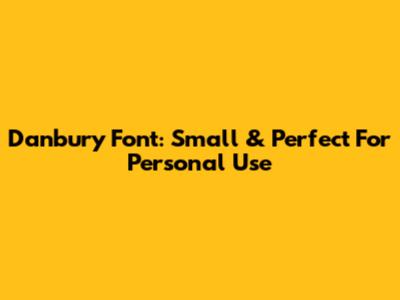
Danbury Font: Small & Perfect For Personal Use
Hey guys, let's talk about fonts! Specifically, we're diving deep into the **Danbury font**, a real gem that's gained traction for its suitability for personal use, especially when you need something small and impactful. You know those projects where you need a font that's legible even at tiny sizes, without sacrificing style? That's precisely where Danbury shines. It’s not just about aesthetics; it’s about **functionality** and **versatility**. Whether you're a hobbyist designer, a blogger, or just someone looking to add a personal touch to your invitations or social media posts, Danbury offers a delightful solution. We'll explore why this font is a go-to for many, how its design characteristics make it ideal for smaller applications, and where you can best utilize its charm. Get ready to discover a font that might just become your new favorite for those intricate, detailed projects where every pixel and curve matters. This isn't just another font; it's a carefully crafted typeface designed to impress even at its smallest dimensions, making your creative endeavors stand out. We're going to break down its unique qualities, offering insights that will help you integrate it seamlessly into your design toolkit. So, buckle up, and let's get started on uncovering the magic of the Danbury font!
Understanding the Appeal of Small Fonts
When we talk about small fonts, we're not just talking about size; we're talking about readability and the ability to pack a lot of information into a limited space. Think about the fine print on a contract, the labels on your favorite spices, or the elegant script on a wedding invitation. These applications demand fonts that are clear, crisp, and easy on the eyes, even when shrunk down. This is where the design of a font truly gets put to the test. A poorly designed small font can become an illegible blob, frustrating your audience and undermining your message. Conversely, a well-crafted font for small use, like the Danbury font, becomes an invisible yet essential part of the design, guiding the reader smoothly through the content. The appeal lies in its ability to maintain its integrity and character at various scales. It's about achieving clarity without appearing clunky, and retaining a sense of style without becoming overly decorative or distracting. Many designers struggle to find fonts that perform well in both large display settings and small body text, but fonts optimized for small use, like Danbury, often strike that perfect balance. They are typically designed with specific considerations for x-height, ascender and descender length, counter shapes, and stroke thickness, all of which contribute to legibility at smaller point sizes. This meticulous attention to detail ensures that even at 8 or 10 points, the text remains sharp and understandable. Furthermore, the psychological impact of a well-chosen small font can be significant. It can convey sophistication, attention to detail, and a sense of intimacy. For personal use projects, this means your handwritten notes, digital scrapbooks, or custom stationery can carry a more polished and thoughtful feel. The Danbury font, in particular, seems to understand this intricate dance between form and function, making it a top contender for anyone needing reliable performance in a compact package. We'll delve into the specific design elements that make Danbury so effective in these scenarios, ensuring you get the most out of this fantastic typeface for all your personal creative endeavors.
What Makes Danbury Font Ideal for Personal Use?
Alright, so you're wondering what makes the Danbury font specifically stand out for personal use projects? Well, guys, it boils down to a few key things: its charming aesthetics, its excellent legibility, and its accessibility. Personal use projects often have a more intimate and crafted feel. Think wedding invitations, birthday cards, personalized stationery, or even custom labels for your homemade jams. You want a font that feels warm, inviting, and reflects a personal touch, rather than a cold, corporate typeface. Danbury often strikes this balance beautifully. It's generally designed with a friendly, approachable character that doesn't feel overly formal or stuffy. Its small size suitability means you can pack a lot of detail into these personal touches without them becoming a jumbled mess. Imagine the RSVP details on an invitation, the ingredients list on a recipe card you're gifting, or the thoughtful quote you want to add to a scrapbook page. Danbury handles these with grace. Furthermore, **accessibility** is a huge plus for personal use. Many fonts designed for commercial use can come with hefty licensing fees. Danbury, being often available for personal use without charge, makes it an incredibly attractive option. This means you can experiment and create without worrying about budget constraints, allowing your creativity to flow freely. Its design characteristics, like a generous x-height and clear letterforms, contribute directly to its legibility at small sizes. This is crucial because, in personal projects, you often want to convey information clearly and elegantly. Whether it's a thank-you note or a digital planner, you want the text to be easily readable. Danbury offers this without compromising on its unique personality. It’s that sweet spot between being distinctive enough to add character and being clean enough to be perfectly readable. So, if you're looking for a font that feels authentic, performs brilliantly in small applications, and is kind to your wallet for your non-commercial creative pursuits, Danbury is definitely worth exploring. We’ll unpack its specific design traits next, so you can really see why it’s such a hit.
The Design Anatomy of Danbury: Legibility in Detail
Let's get technical for a sec, guys, and really dissect what makes the Danbury font so darn good at being small and readable. It’s all in the design anatomy! When a font is intended for small-scale use, designers pay super close attention to certain features. For Danbury, we often see a **generous x-height**. What does that mean? The x-height is basically the height of lowercase letters like 'x', 'a', and 'c' without ascenders (like the top of 'h' or 'b') or descenders (like the tail of 'p' or 'g'). A taller x-height means the main body of the letters is larger relative to the overall font size, making them easier to distinguish. This is a massive win for legibility in small text. Couple that with **open counters**. Counters are the enclosed or partially enclosed negative space within letters, like the hole in 'o', 'p', or 'e'. If these spaces are too small or get filled in at tiny sizes, the letters can look muddy and hard to read. Danbury's open counters keep those shapes distinct. You'll also notice **clear, well-defined letterforms**. This means there's minimal ambiguity between similar letters like 'i' and 'l', or 'o' and '0'. The strokes are typically clean, avoiding overly thin serifs or intricate flourishes that can disappear at small sizes. Danbury often achieves this with a balanced stroke weight – not too thin to break up, and not too thick to clog. Furthermore, the **kerning and spacing** (the space between letters and words) are usually finely tuned. This ensures that text flows smoothly and doesn't feel cramped or overly stretched. Good spacing prevents letters from bumping into each other and maintains the overall visual rhythm of the text. For *personal use* projects, where you might be fitting a lot of text onto a small card or label, these details are absolutely crucial. They allow you to convey information effectively without forcing your reader to squint. Danbury's success in small applications is a testament to thoughtful typographic design. It’s not just about making a font look pretty; it’s about making it *work* exceptionally well, especially when space is at a premium. This meticulous attention to detail is what elevates Danbury from just another font to a reliable tool for your most intricate creative needs. We're talking about a font that understands the challenges of small-scale design and tackles them head-on with clever, functional letterforms.
Practical Applications for Danbury Font
So, where can you actually *use* this awesome Danbury font, especially when you need something small and perfect for your personal use projects? Guys, the possibilities are pretty much endless! Let’s brainstorm some ideas. Firstly, think about **invitations and stationery**. Wedding invitations, baby shower invites, birthday cards – these often have a lot of information (names, dates, times, locations, RSVP details) that needs to fit elegantly onto a small card. Danbury, with its excellent legibility at small sizes, is fantastic for the finer details. You can use a slightly larger, more decorative font for the main headings and then switch to Danbury for all the essential information. It keeps things clean and professional-looking, even when printed on a small format. Next up, **scrapbooking and journaling**. If you're a visual storyteller, adding captions, dates, or journaling blocks to your layouts is key. Danbury can add that personal, crafted touch without overwhelming your photos or other embellishments. Its readability makes it perfect for longer journaling entries or small, informative captions. Then there are **custom labels**. Creating your own spice jars, organizing your pantry, or making personalized gifts? Danbury is your go-to. Imagine beautifully labeled jars of homemade jam or personalized tags for party favors. The font’s clarity ensures that the contents and any instructions are easily identifiable. **Digital planning** is another huge area where Danbury excels. Digital planners often have tiny boxes for daily tasks, to-do lists, or notes. Danbury's ability to remain legible at minuscule sizes makes it a lifesaver for digital planners, bullet journals, and any app where you need to write small but keep it clear. Think about **business cards** for freelancers or side hustles where you need to include contact info, social media handles, and perhaps a brief tagline. Danbury can handle that dense information with style and clarity. Even for **personal websites or blogs**, you might use Danbury for captions, meta descriptions, or footer information where space is limited and readability is paramount. Essentially, any project where you need to communicate information clearly and attractively in a confined space is a prime candidate for the Danbury font. Its versatility for personal projects means you can inject personality and professionalism without breaking the bank on commercial licenses. It truly is a workhorse font for those detail-oriented, personal creative endeavors.